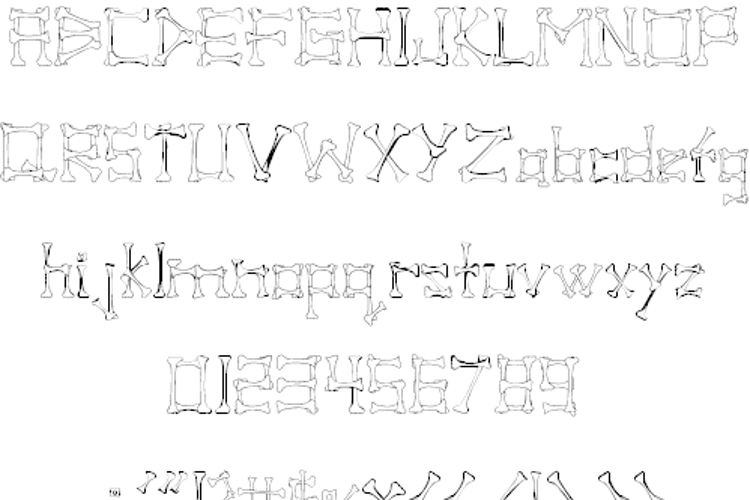
Pirate Font
Pirate bones was intended to be like real femur bones connected to make every letter, No bendy bones in this font but all real long bones and a few invertibrae for periods and such.